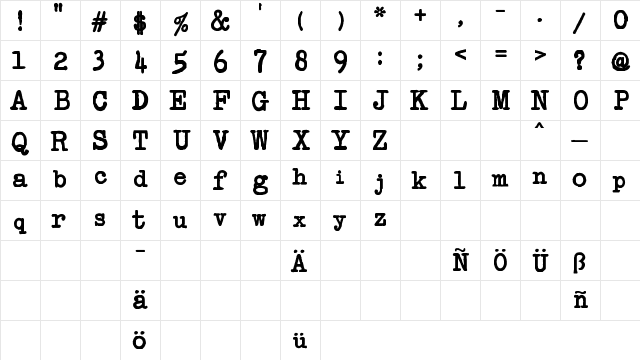
TSS Scrubs Beginners Regular
Design Context for TSS Scrubs Beginners Typeface
TSS Scrubs Beginners is a composed and adaptable typeface that performs quietly and consistently across a wide range of design contexts.